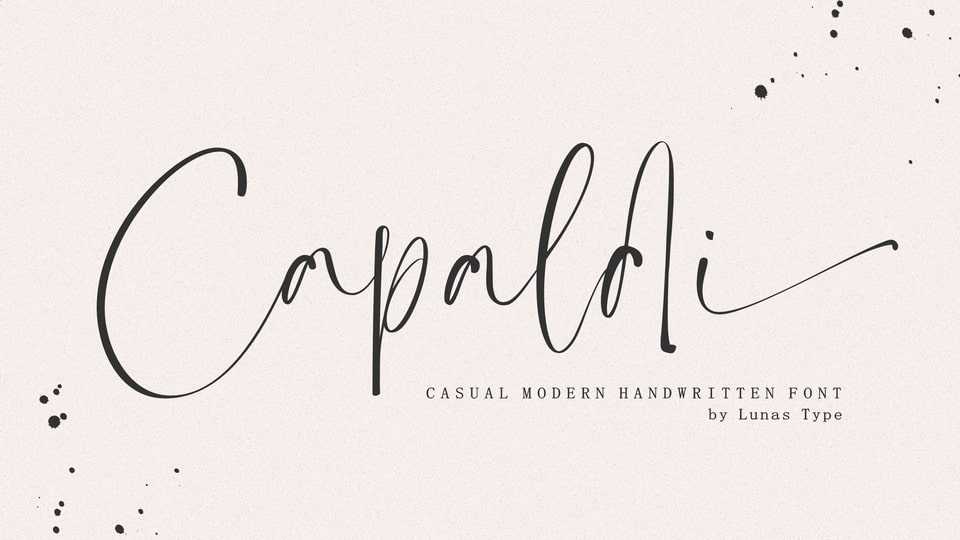
Download Capaldi font, an eye-catching, fashionable and chill handwritten script font. Capaldi font is perfect for many design needs such as merch, t-shirts, titles, book covers, social media posts, websites, events, and many more.
Designer: Lunas Type